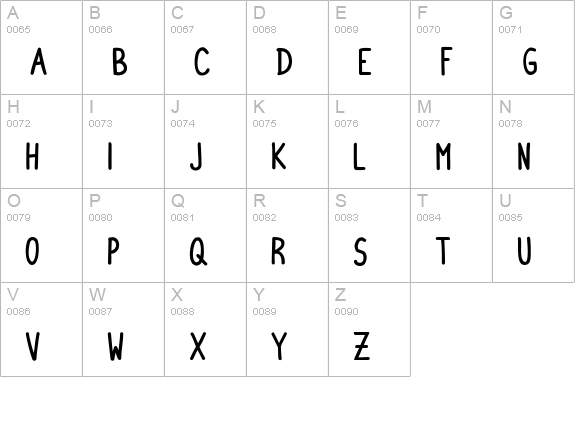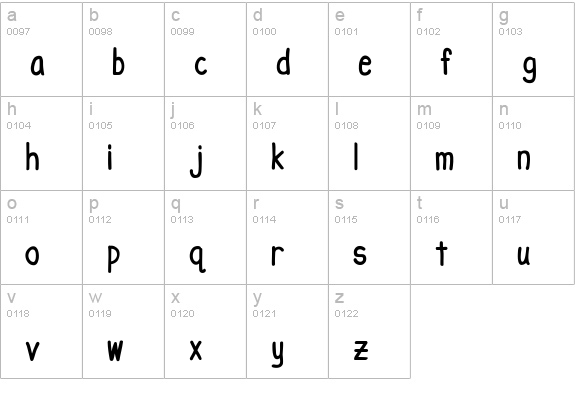
Milk Run Font Details
Introducing Milk Run - a modern and playful font that exudes charm and versatility. With its clean lines and friendly appearance, Milk Run is perfect for a wide range of design projects, from branding and packaging to social media graphics and invitations. This delightful font is ideal for adding a touch of whimsy to your creations, while still maintaining a sense of professionalism. Whether you're looking to create a fun and inviting vibe or simply want to stand out from the crowd, Milk Run has got you covered. Best of all, Milk Run is available for free download at FontsMarket.com. So go ahead and add this delightful font to your collection today and let your creativity run wild with Milk Run!